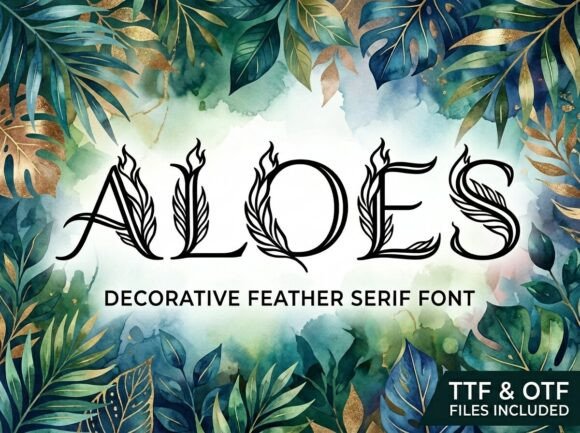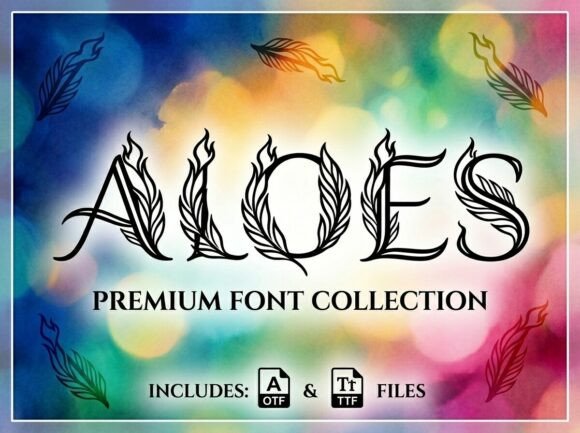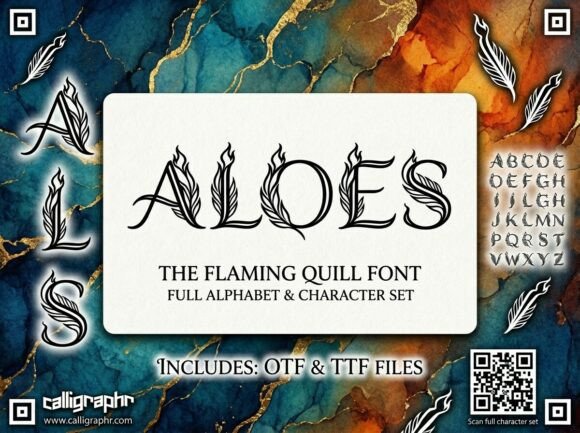
Unleash Your Creativity with Aloes Font: The Majestic Display Typeface
Are you a designer, crafty enthusiast, or simply someone who appreciates the beauty of typography? Look no further than Aloes Font, a stunning display typeface that embodies the perfect blend of elegance and grandeur. With its unique, hand-drawn features and poetic personality, Aloes is the ideal choice for those seeking to add a touch of sophistication to their creative projects.
The Inspiration Behind Aloes Font
Aloes Font is designed to evoke a sense of refinement and luxury, drawing inspiration from classical literature and modern artisanal branding. The font’s creator aimed to craft a typeface that would bridge the gap between traditional and contemporary design, resulting in a majestic display font that exudes a “graceful-and-grand” soul.
Distinctive Features of Aloes Font
So, what sets Aloes Font apart from other typefaces? The answer lies in its distinctive features, which include:
- Elegant, high-contrast letterforms: Aloes Font boasts refined, high-contrast letterforms that convey a sense of luxury and sophistication.
- Rhythmic, hand-drawn “feather” plumes: The font’s unique, hand-drawn “feather” plumes add a touch of whimsy and elegance to each letterform.
- Delicate quill-like strokes: The delicate quill-like strokes that characterize Aloes Font bring a sense of refinement and precision to the typeface.
The Benefits of Using Aloes Font
With its medium structural weight and poetic personality, Aloes Font offers a range of benefits for designers, crafters, and anyone looking to elevate their creative projects. Some of the advantages of using Aloes Font include:
- Versatility: Aloes Font is suitable for a wide range of applications, from independent boutique stationery to literary blog headers, luxury ink-and-paper identities, and high-impact social media content.
- Elegance: The font’s elegant, high-contrast letterforms and delicate quill-like strokes ensure that your designs exude sophistication and refinement.
- Creativity: With Aloes Font, you can add a touch of whimsy and personality to your designs, thanks to its unique, hand-drawn features.
Ideal Applications for Aloes Font
Aloes Font is the perfect choice for a variety of creative projects, including:
- Independent boutique stationery: Add a touch of luxury to your stationery designs with Aloes Font’s elegant, high-contrast letterforms.
- Literary blog headers: Create a sophisticated and refined look for your literary blog with Aloes Font’s poetic personality.
- Luxury ink-and-paper identities: Elevate your brand’s identity with Aloes Font’s unique, hand-drawn features and delicate quill-like strokes.
- High-impact social media content: Make your social media content stand out with Aloes Font’s majestic display typeface and rhythmic, hand-drawn “feather” plumes.
In conclusion, Aloes Font is a majestic display typeface that offers a unique blend of elegance, grandeur, and creativity. With its distinctive features, versatility, and poetic personality, Aloes Font is the perfect choice for designers, crafters, and anyone looking to elevate their creative projects. Whether you’re seeking to create sophisticated stationery, refined literary blog headers, or high-impact social media content, Aloes Font is the ideal choice. So, spread your creative wings and take your designs to new heights with Aloes Font.